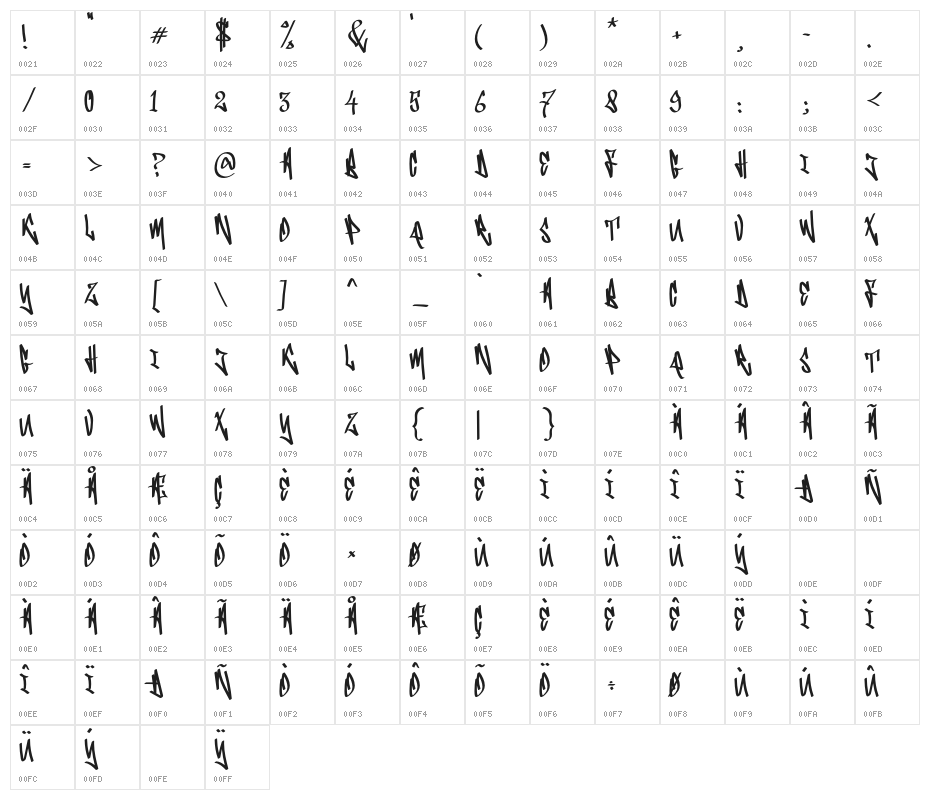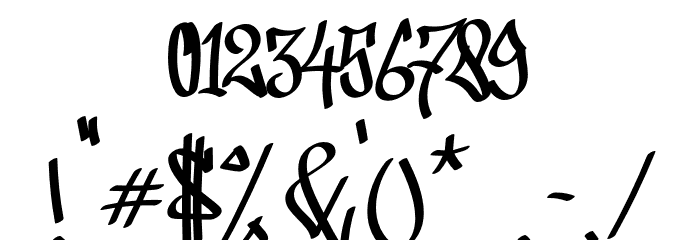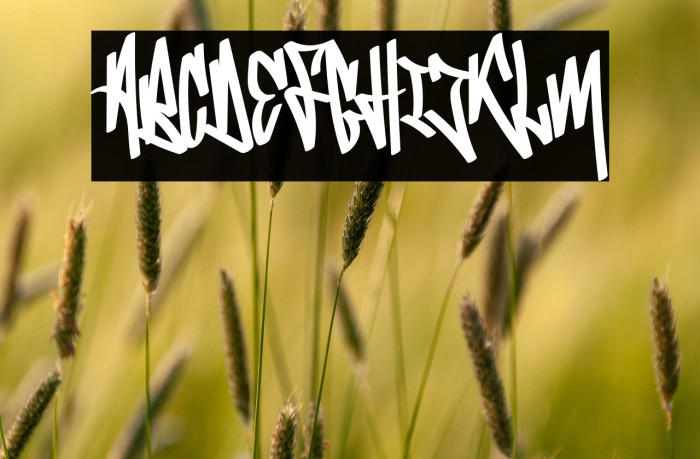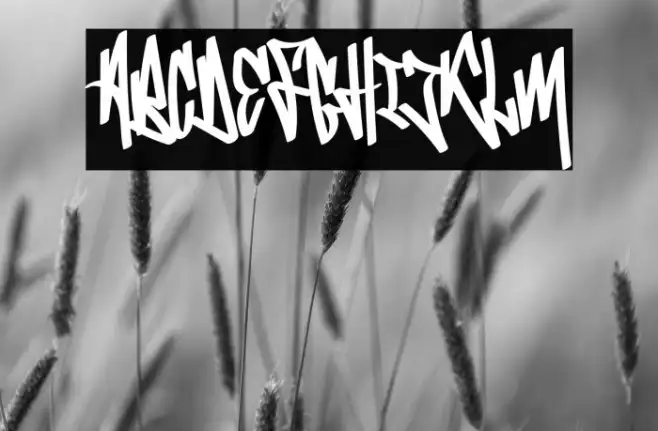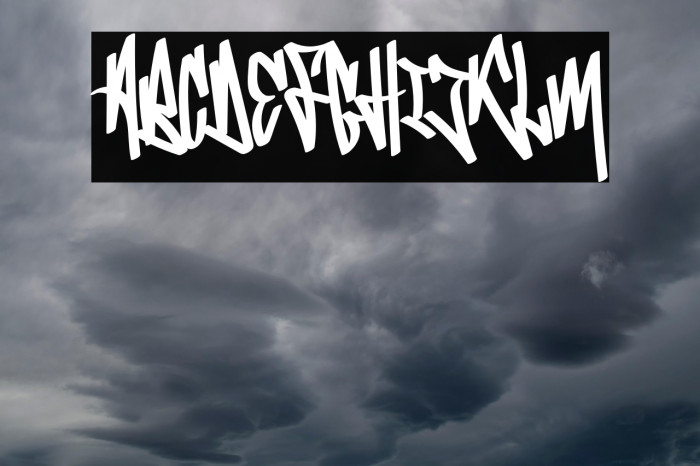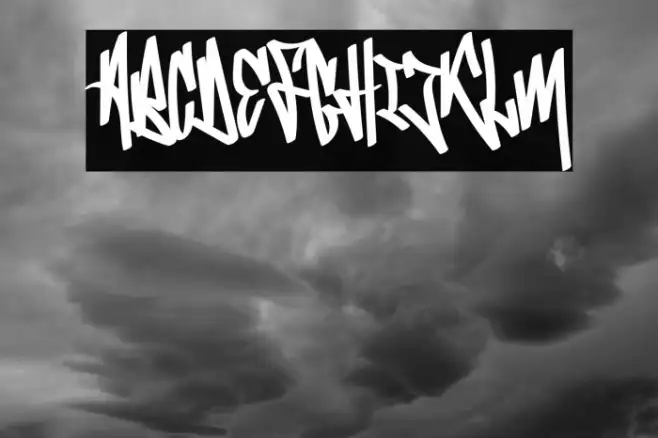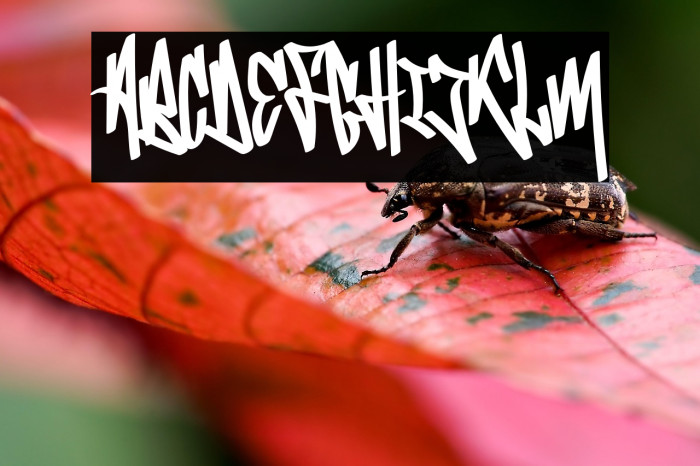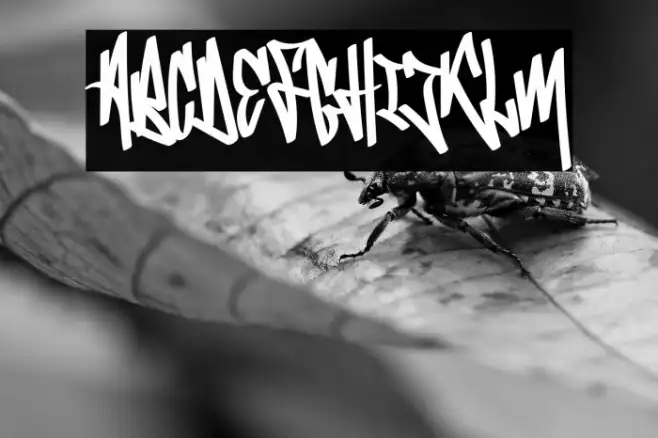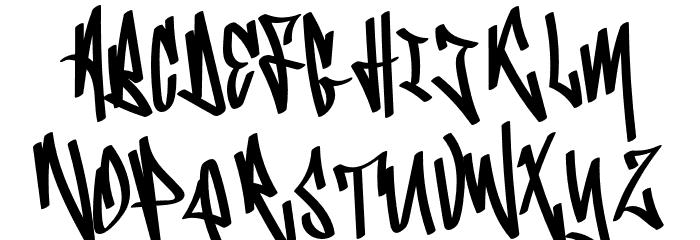
BombardiesDemo Font
BombardiesDemo Description
This font features a bold and dynamic graffiti style, characterized by sharp angles and exaggerated curves. The letters are highly stylized, with a sense of motion and energy that captures the essence of street art. The uppercase and lowercase letters maintain a consistent aesthetic, while the numbers and special characters complement the overall design. The font's unique appearance makes it stand out, ideal for projects that require a strong visual impact.
| Overall Style | Modern, Urban |
| Proposed Projects | Ideal for urban-themed designs, streetwear branding, music album covers, and event posters. |